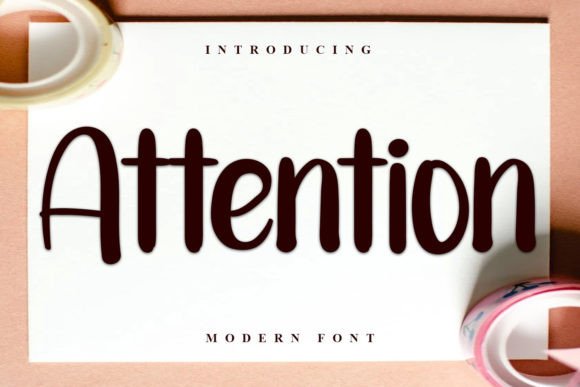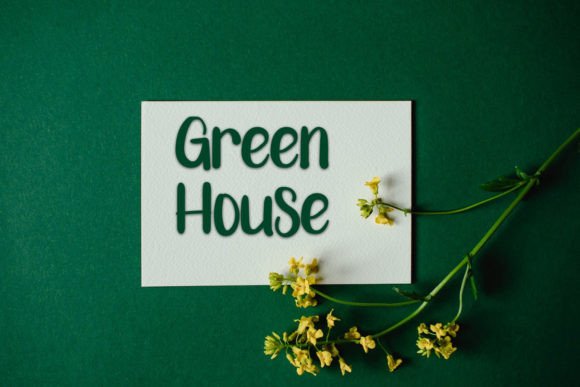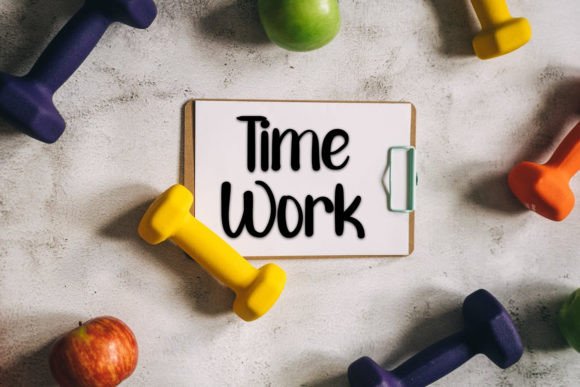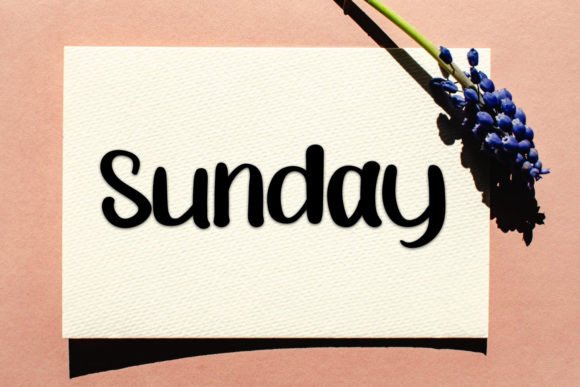
Attention Font
A Charming and Elegant Handwritten Font
Attention Font is a charming and elegant handwritten typeface that adds a personalized and timeless touch to your designs. With its flowing strokes and beautiful curves, this font is perfect for a wide variety of creative projects. Whether you’re designing wedding invitations, thank you cards, or business logos, the Attention Font brings a unique, refined style to your work, ensuring that your designs stand out with grace and sophistication.
Perfect for Wedding Invitations and Special Occasions
For wedding invitations and special event stationery, the Attention Font is the ideal choice. Whether you’re designing save-the-dates, thank-you cards, or event programs, this font adds an elegant, romantic touch to your designs. Its handwritten appeal ensures that your invitations feel personalized and intimate, setting the perfect tone for your special occasion. Whether you’re hosting a luxury wedding or an intimate celebration, this font makes your stationery look timeless and memorable.
Ideal for Logos and Branding
For logos and branding, the Attention Font brings a unique, personalized element to your business identity. Whether you’re designing a luxury brand logo, personalized business cards, or branding materials, this font ensures that your logo stands out with elegance and refinement. Its beautiful curves and elegant lines convey a sense of creativity and professionalism, making it the perfect choice for businesses seeking a memorable and charming identity.
Great for Greeting Cards and Quotes
For greeting cards and quote designs, the Attention Font adds a charming, elegant touch to your messages. Whether you’re designing birthday cards, thank-you notes, or motivational quotes, this font brings a unique flair to your text. Its handwritten style ensures that your greetings and messages feel authentic and personal, making them resonate with your audience. Use it to create beautiful designs for gifts, celebrations, or personal projects.
Perfect for Business Cards and Promotional Materials
For business cards and promotional materials, the Attention Font offers a distinctive handwritten style that gives your branding a memorable, personalized touch. Whether you’re designing business cards, flyers, or advertisements, this font adds a professional yet approachable element to your business identity. The charming strokes and clean design ensure your promotional materials stand out while maintaining a polished and sophisticated appearance.
Versatile and Legible
Despite its elegant handwritten style, the Attention Font remains legible and easy to use. Its consistent strokes and well-spaced letterforms ensure that your text is clear and readable, even for longer passages or smaller sizes. Whether you’re using it for headlines, captions, or body text, this font strikes the perfect balance of creativity and readability, making it suitable for various design applications, from print to digital media.
Add Charm and Elegance to Your Designs with Attention Font
If you’re looking for a charming and elegant handwritten font to elevate your designs, the Attention Font is the perfect choice. Whether you’re designing wedding invitations, logos, greeting cards, or social media content, this font adds a timeless, personalized touch to your work. Let the Attention Font help you create memorable, creative designs that leave a lasting impression.